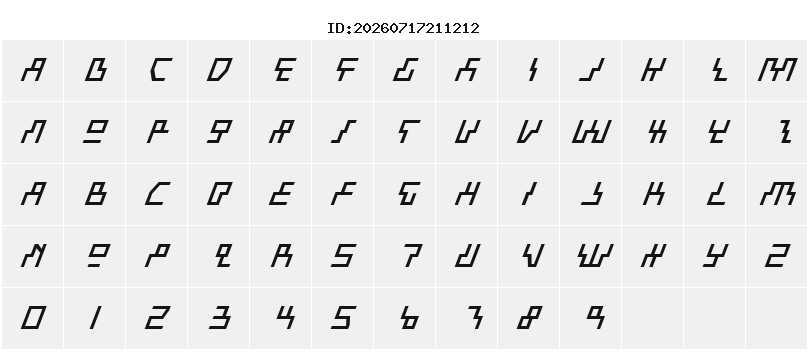
• Font Name: Beam Rider Italic
• Full Font Name: Beam Rider Italic
About Beam Rider Italic.ttf
Beam Rider Italic.ttf is a modern, elegant sans-serif font designed for ultimate readability and visual harmony. Perfect for branding, headlines, web design, and print materials.